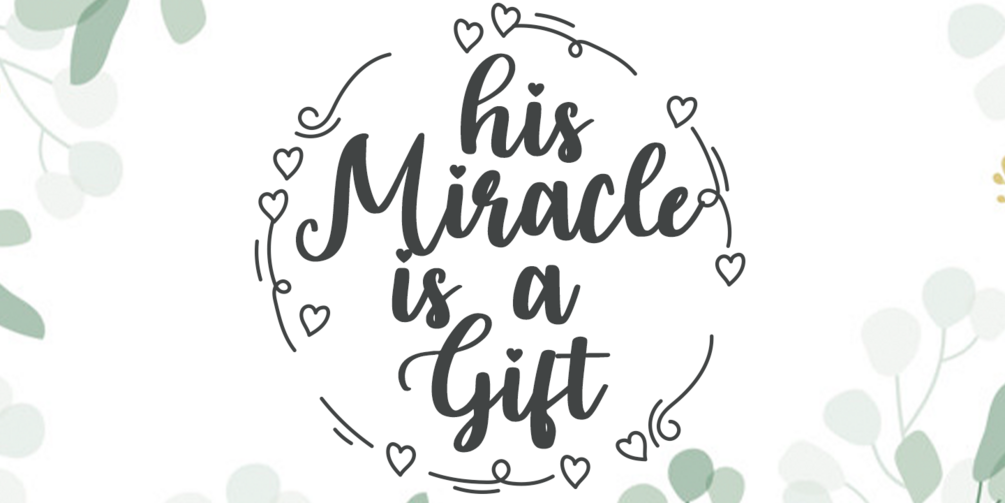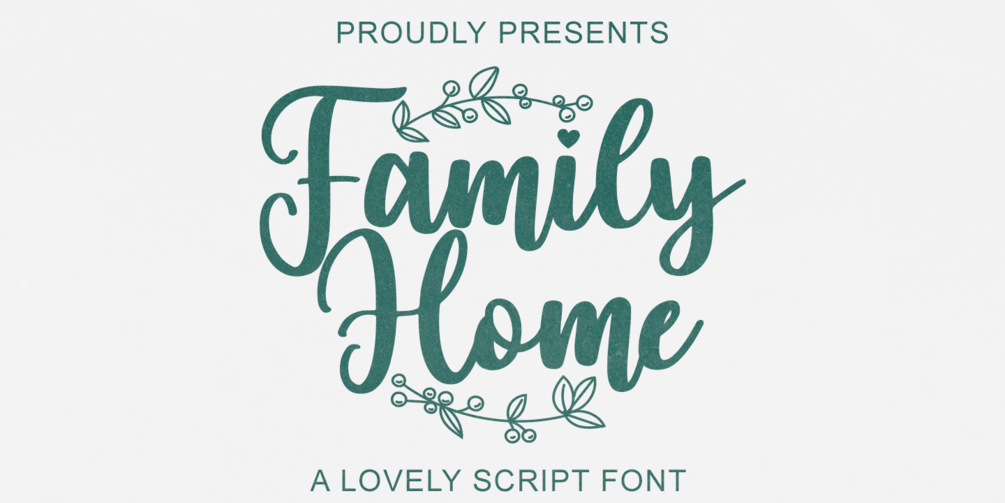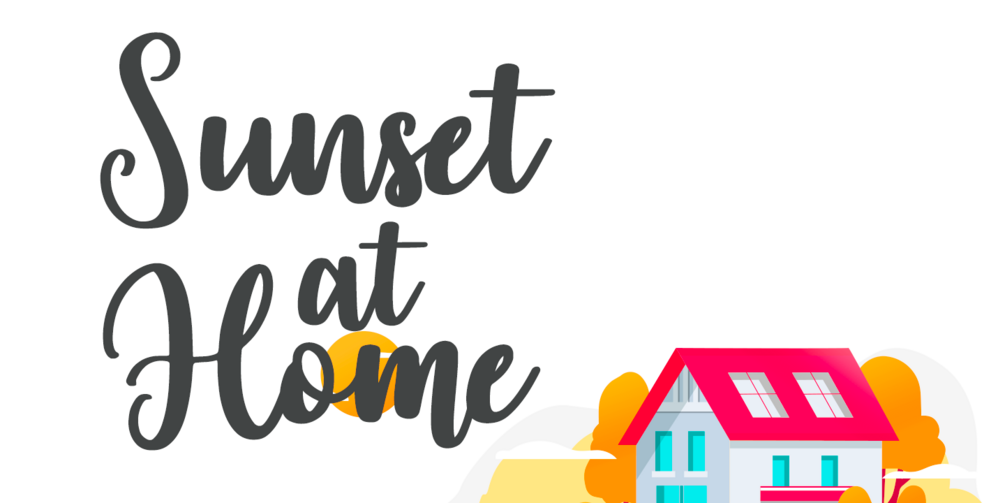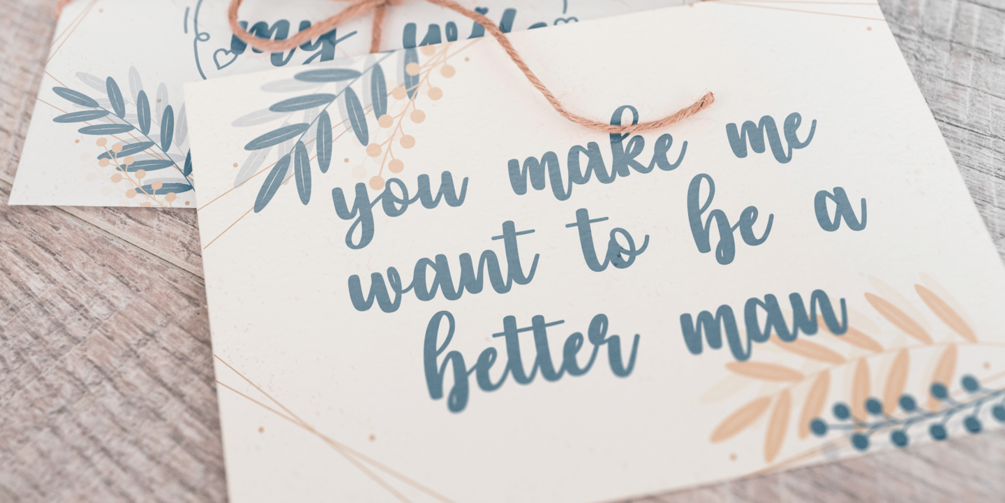
Family Home
Looking for a font that’s sweet, romantic—and effortlessly elegant?
Family Home is a dainty handwritten font designed to bring a genuine, heartwarming touch to your designs.
With its soft cursive strokes and joyful flow, this font is perfect for everything from wedding invitations and love letters to seasonal cards and cozy merchandise. Whether you’re creating romantic themes or heartfelt crafts, Family Home brings warmth and sincerity to every word.
💖 Lovely handwritten style with natural curves
💖 Ideal for wedding projects, mugs, posters, Christmas cards & more
💖 Multilingual support & elegant ligatures
🎀 Let your words feel personal and poetic—with Family Home.